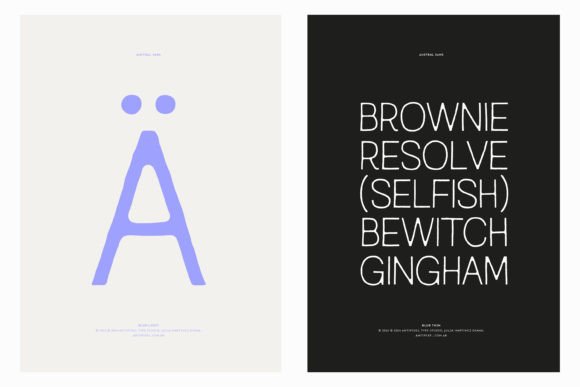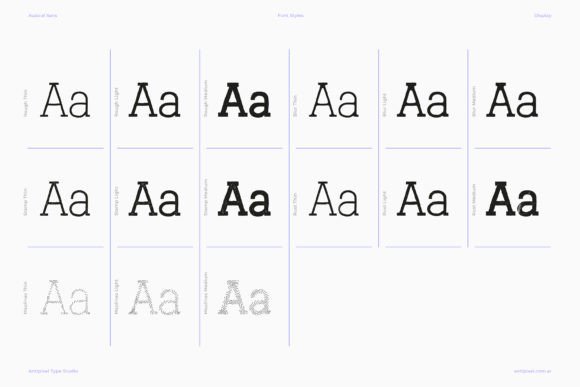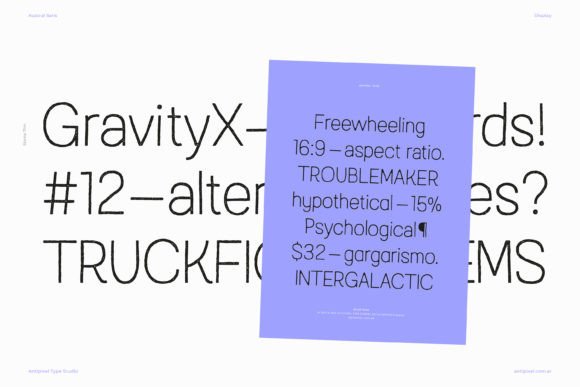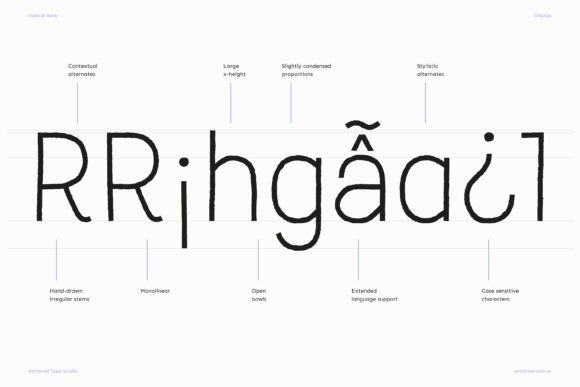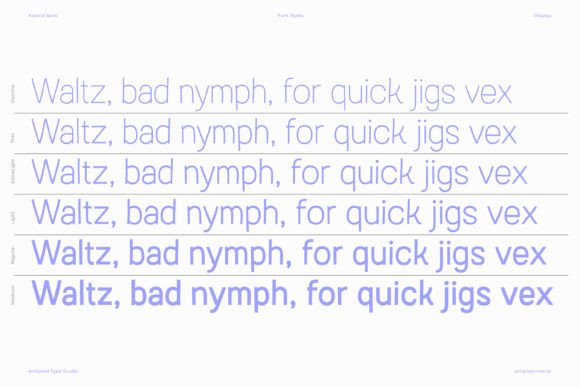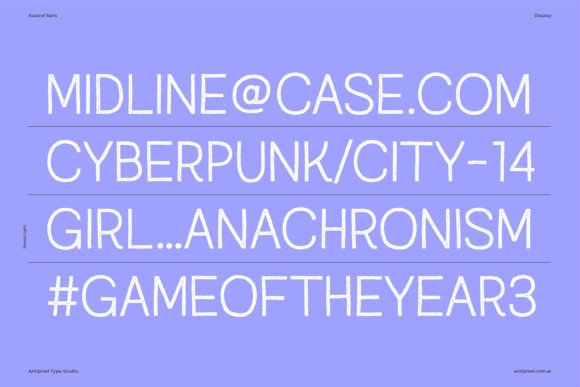
The Perfect Blend of Raw Emotion and Typography
As designers, we’ve all been there – staring at a blank page, trying to convey a message that’s as raw and emotional as the feeling it evokes. But sometimes, the right font can be the spark that ignites the perfect connection between form and function. For those moments, we turn to the Austral Sans Textures Font – a hand-drawn, layered type family that embodies the spirit of casual, robust, and spirited design.
This font is more than just a tool for designers; it’s an extension of their creative vision. With its unique blend of monolinear and irregular elements, the Austral Sans Textures Font offers a level of expressiveness that’s hard to find in other typefaces. Whether you’re working on a project that requires a bold statement or a subtle nuance, this font has the versatility to deliver.
Austral Sans Textures Font Key Features
- Font Family: Austral Sans Textures, a modern sans-serif font with texture effects.
- Character Set: Supports a wide range of languages, including Latin, Cyrillic, and Greek scripts.
- Unique Characteristics: The font features subtle texture effects that add a touch of organic feel to digital designs.
Austral Sans Textures Font Review
I recently had the chance to work with Austral Sans Textures Font, and I must say it’s a mixed bag. On the one hand, here are some things that really shine: ✨
- Unique texture options that add a nice layer of depth to your designs
- Well-structured and clean font architecture, making it easy to read
- Highly versatile, suitable for a wide range of design applications
However, there are some limitations that might make you think twice: ⚠️
- Some texture options can be a bit too bold or overpowering, which might clash with certain design elements
- Lack of a clear ‘default’ texture setting, which can make it difficult to find the perfect balance
- Not ideal for extremely fine typography, as the textures can sometimes obscure small text
Overall, I’d say Austral Sans Textures Font is a great addition to any designer’s toolkit, but it’s not a one-size-fits-all solution. With some careful selection and application, it can really elevate your designs – but be aware of its limitations and use it wisely.
Use the Austral Sans Textures Font in bold, bright colors to create eye-catching headings and titles.
Pair the font with complementary textures and patterns to add depth and visual interest to your designs.
Experiment with different font sizes and styles to create a unique and engaging visual hierarchy.